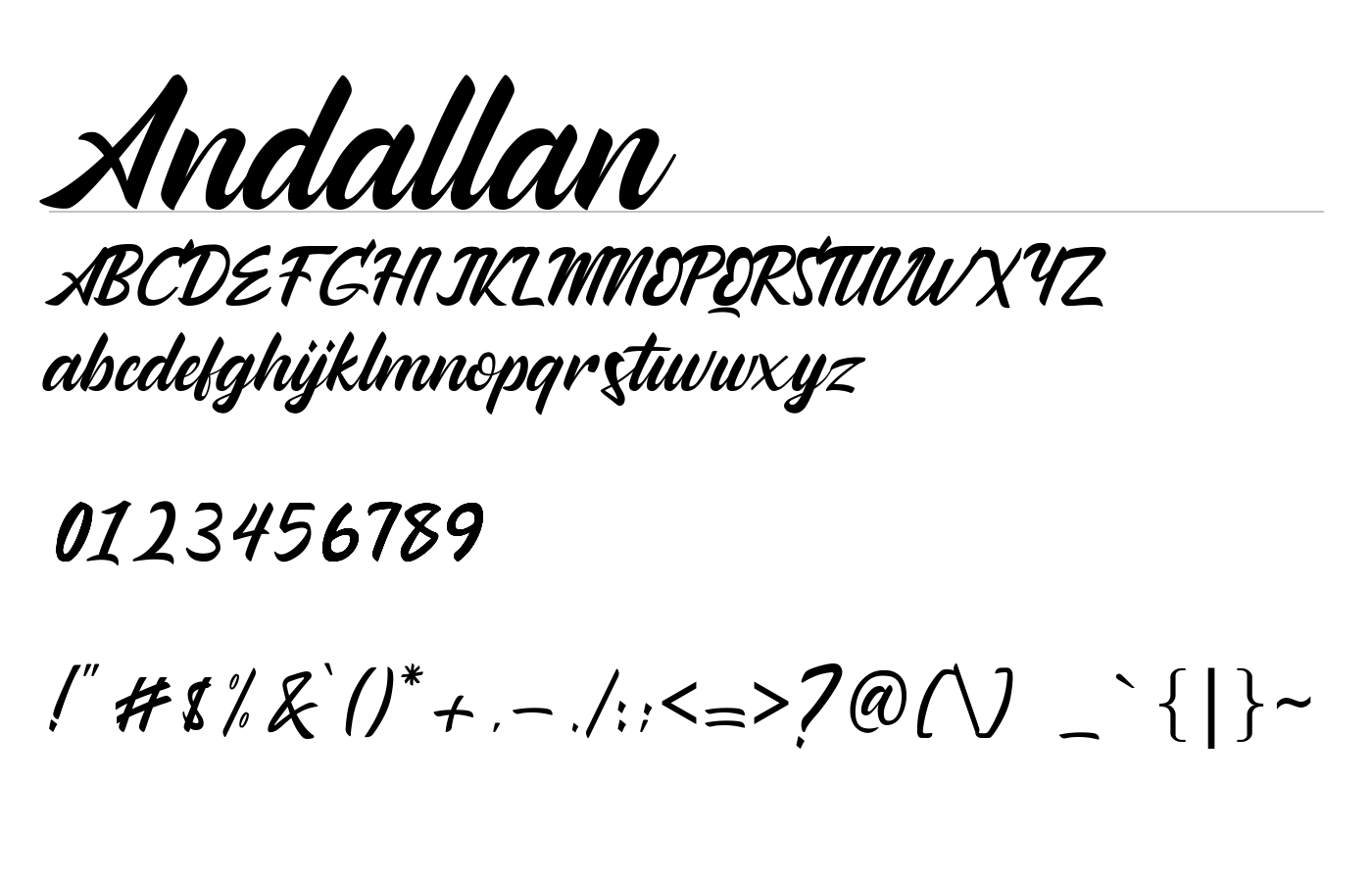
Andallan is a lively script font with a bold, flowing style that brings energy and elegance to any design. Its smooth, connected strokes and slight slant create a dynamic, handwritten feel perfect for branding, invitations, and headlines where a personal yet stylish touch is desired. This font works especially well in creative and fashion contexts, adding a chic and contemporary flair.
Andallan Font